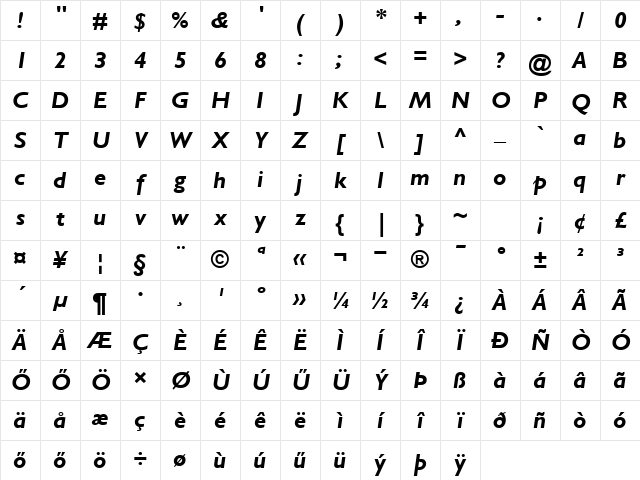
H_Gill Sans BoldItalic
Design Context for H_Gill Sans
H_Gill Sans is a composed and adaptable typeface that performs quietly and consistently across a wide range of design contexts. The slanted form adds forward momentum and visual energy. Its bold stroke weight gives it real presence on the page.